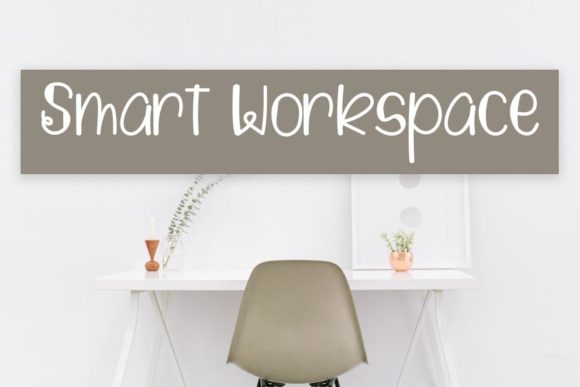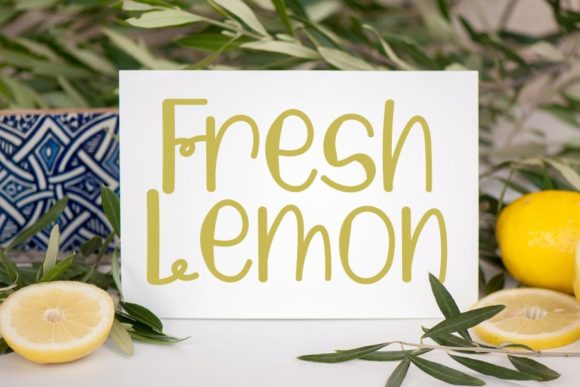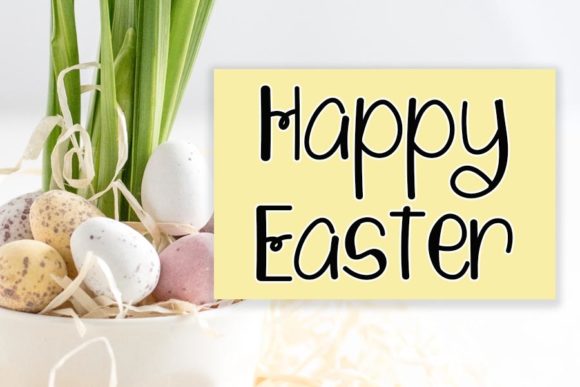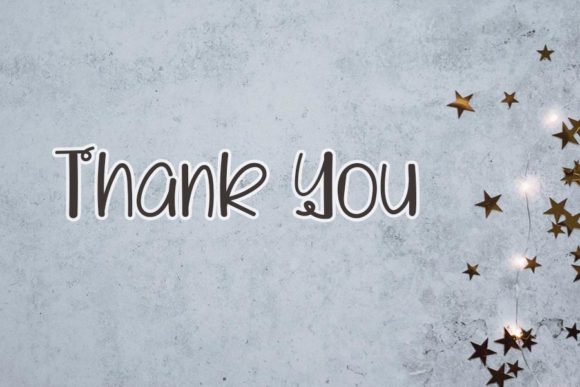
Unleash Your Creativity with Baby Girl Font
As a designer, there’s nothing quite like the thrill of discovering a new font that sparks inspiration. Whether you’re working on a project for a client or creating something just for fun, the right font can make all the difference. And that’s exactly what the Baby Girl Font does – it brings a touch of whimsy and charm to any design project.
With its delicate swashes and sweet, unique style, the Baby Girl Font is perfect for a wide range of crafty ideas, from letterheads and titles to stationery. This original look is sure to appeal to designers who crave something fresh and exciting. Whether you’re a seasoned pro or just starting out, the Baby Girl Font is a valuable addition to any design toolkit.
Baby Girl Font Key Features
- Unique Characteristics: Distinctive cursive script with swashes and flourishes, perfect for adding a touch of elegance and femininity to designs
Designer Review: Baby Girl Font
At first glance, the Baby Girl Font is a charming, cursive script designed to evoke a sense of whimsy and femininity. ✨ The font’s flowing lines and gentle curves make it perfect for creating adorable invitations, nursery decorations, or any other design project that requires a touch of sweetness.
One of the standout features of this font is its versatility. It comes in a range of weights and styles, from light and airy to bold and playful. This allows designers to experiment with different looks and feels, from delicate to dramatic. ✨ The font also includes a range of ligatures and swashes, which can add an extra layer of personality to designs.
- ⚠️ The font may not be suitable for large blocks of text, as the cursive script can become difficult to read at size.
- ⚠️ The font’s charm can also be its weakness, as it may feel overly sweet or childish in some contexts.
Overall, I think the Baby Girl Font is a delightful addition to any designer’s toolkit. While it may have some limitations, its charm and versatility make it a great choice for projects that require a touch of whimsy and femininity. With careful use, this font can add a unique and memorable touch to designs of all kinds.
The Baby Girl Font is ideal for creating feminine and playful designs, such as:
– Baby shower invitations
– Nursery decor
– Children’s party materials
– Personalized gifts for girls
For the best results, use the font in combination with pastel colors and delicate graphics to create a soft and whimsical feel.